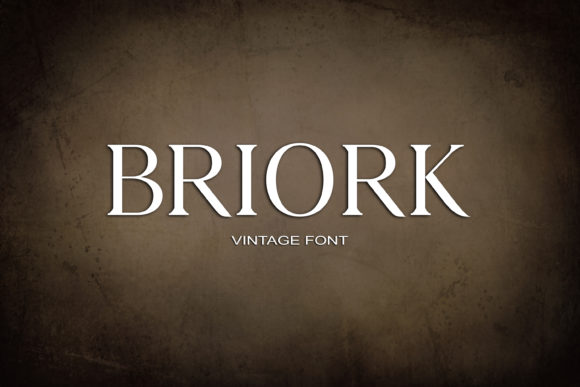
Briork Font
Introducing Briork Font: A Timeless Serif Masterpiece for Your Creative Endeavors
Briork Font, an elegant creation by DmDesignsStoreArt, is a serif font brimming with sophistication and charm. Its timeless beauty emanates from the harmonious blend of classic and modern aesthetics, making it a versatile choice for a plethora of design projects.
Immerse yourself in the world of Briork, where each character is meticulously crafted with utmost care and precision. The soft, rounded edges exude an air of elegance and grace, while the sharp, contrasting strokes add a touch of modernity and vibrancy. This unique combination results in a font that is both visually appealing and highly functional.
Briork's versatility knows no bounds. It effortlessly complements various creative endeavors, from branding and logo design to web design and typography. Its classic serif style lends a touch of sophistication to your designs, making them stand out from the crowd. Briork shines in both print and digital mediums, ensuring your messages are conveyed with clarity and impact.
With Briork Font, you have the power to transform your creative visions into stunning realities. Its timeless appeal and boundless versatility make it the perfect font for designers, artists, and entrepreneurs who seek to make a lasting impression.